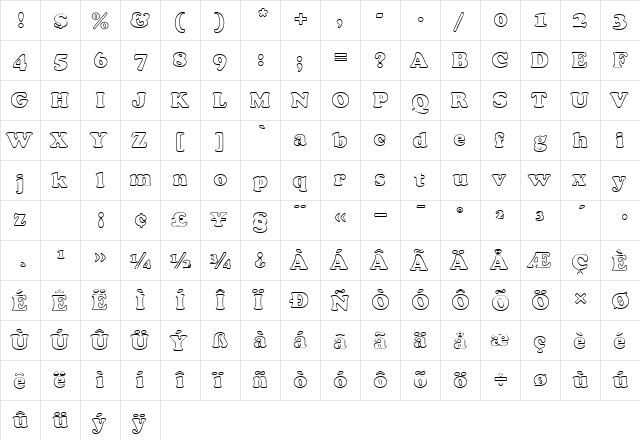
PT Cozy Outline Normal
Design Context for PT Cozy Outline Typeface
PT Cozy Outline brings ornamental detail and strong personality to headlines and identities, where visual impact matters more than quiet functionality.
Font Pairing: Pair with a clean neutral sans-serif for body copy to let PT Cozy Outline's character lead without overwhelming the composition.
Pro Tip: Treat PT Cozy Outline as the centrepiece of your typographic hierarchy. One strong heading set in a decorative face can carry an entire layout.